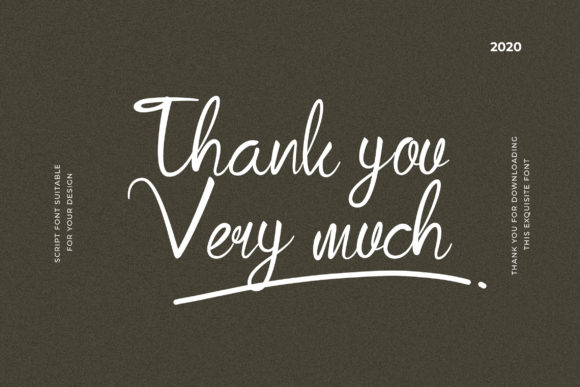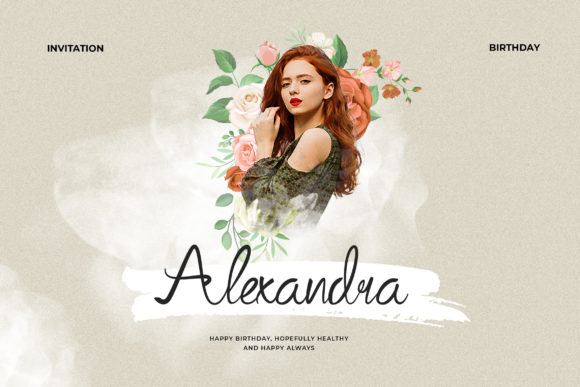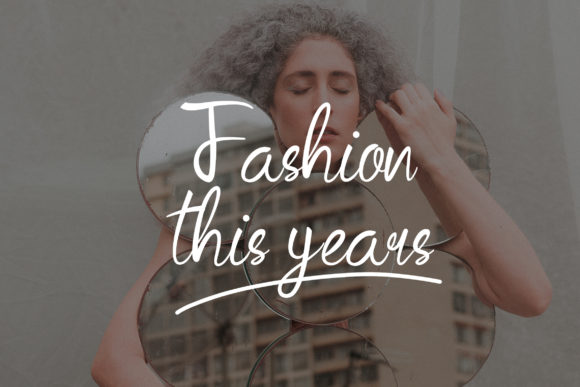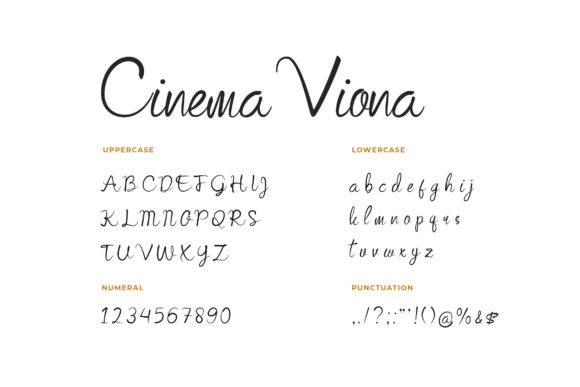
Cinema Viona Font
About Cinema Viona Font
Cinema Viona is a cursive and delicate script font. It is defined by smooth curves and is perfect for fashion branding or editorial designs. Add it confidently to your projects, and you will love the results.